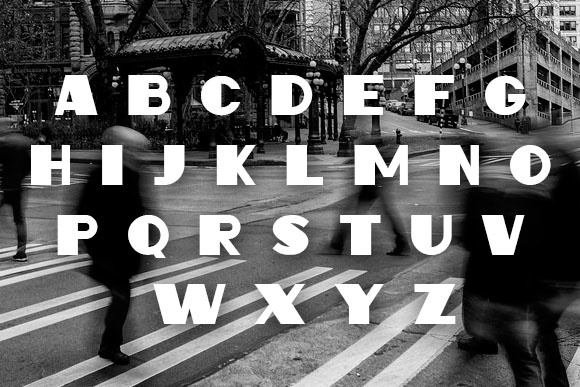
Introduction to Intransitive Font
Intransitive is an elegant retro font that comes in Regular and Italic variants.
It is great for banners, posters, headlines, and more .
Key Features of Intransitive Font
Why Choose Intransitive Font?
Intransitive Font offers exceptional quality and versatility, making it a valuable addition to your design toolkit. Whether you’re creating for personal projects or commercial use, Intransitive Font delivers professional results.